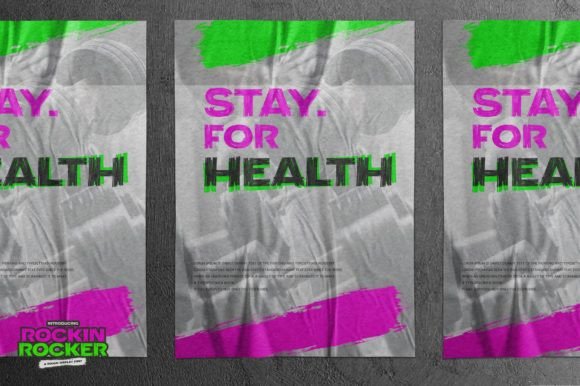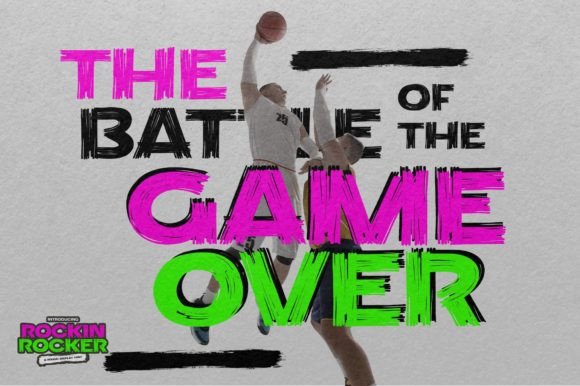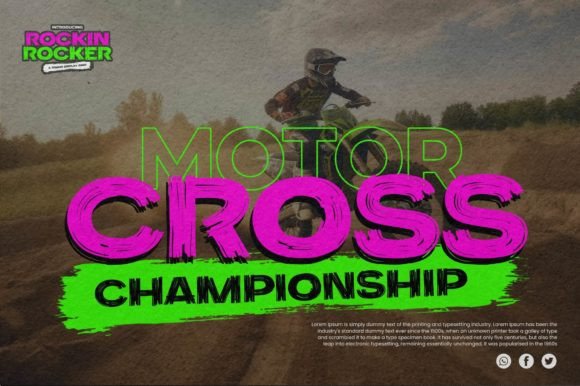
Introduction to Rockin Rocker Font
Have you ever been stuck on a creative project, staring blankly at your screen, searching for that perfect font to capture the essence of your idea? For designers, finding the right font can make all the difference in bringing a concept to life. This is exactly where the Rockin Rocker Font comes in – a cool and modern brush display font that exudes a rebellious energy, perfect for music-related projects, album covers, posters, and more.
With its bold and dynamic letterforms inspired by rock and roll, the Rockin Rocker Font adds a touch of attitude to your designs. Whether you’re working on a high-quality design resource or a free download for a client, this font is sure to bring a rockstar vibe to your creative endeavors. Plus, with its transparent background, you can easily integrate it into your designs without any distractions.
As a valuable resource for designers, the Rockin Rocker Font offers endless possibilities for creative projects. From music festivals to album art, this font is sure to make your designs stand out. So why settle for a generic font when you can rock the Rockin Rocker Font?
Key Features of Rockin Rocker Font
- Unique, bold, and eye-catching font style ideal for music-related designs, logos, and branding
- Large character set, including uppercase and lowercase letters, numbers, and punctuation marks
- Perfect for use in logos, posters, flyers, and other design projects that require a bold, rock-inspired font
Honest Review: Rockin Rocker Font
I recently stumbled upon the Rockin Rocker Font, and I must say it’s been a game-changer for my latest creative project. The high quality of this font has exceeded my expectations, and I’m excited to share my thoughts on it.
- Unique design style that’s perfect for music-related projects or anything that needs a bit of edge.
- Not ideal for projects that require a more subtle or elegant font style.
Overall, I’m thoroughly impressed with the Rockin Rocker Font. Its unique design style and high-quality files make it a valuable addition to any designer’s toolkit. Whether you’re working on a music-themed project or just need a font with some attitude, this is definitely worth checking out.
The Rockin Rocker Font is perfect for a variety of creative projects, including music festival posters, rock band logos, and more. You can also use it to add a fun touch to your social media graphics, blog posts, and other online content.
To get the most out of the Rockin Rocker Font, try combining it with other bold and playful fonts to create a unique and eye-catching design. You can also experiment with different font sizes and colors to add depth and interest to your design.